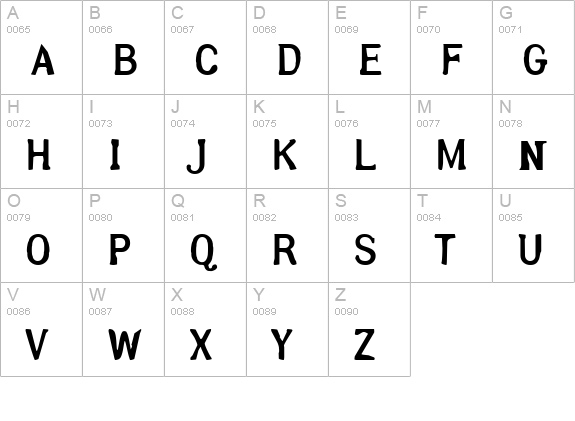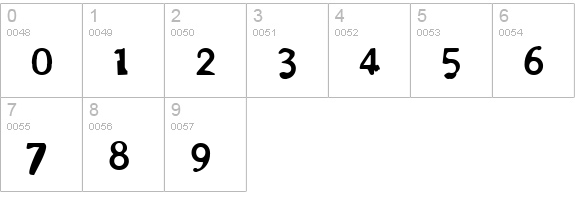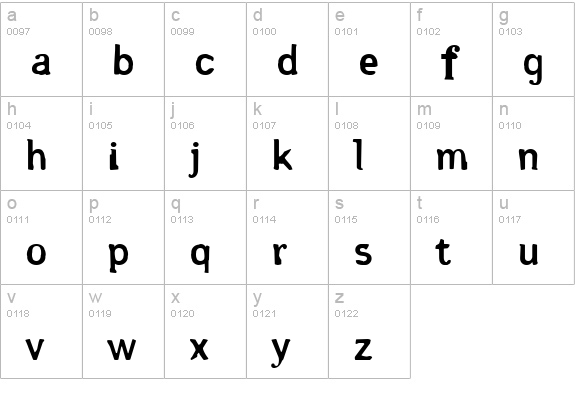
Arsle Gothic Font Details
Arsle Gothic is a stunning and versatile font that combines traditional Gothic elements with a modern twist. Its sharp lines and intricate details give it a unique and edgy look that is perfect for adding a touch of sophistication to any design project. Whether you're creating a poster, logo, or website, Arsle Gothic will make a bold statement and grab the attention of your audience. What makes Arsle Gothic even more appealing is that it is completely free to use. You can easily download this font at FontsMarket.com and start incorporating it into your designs right away. With its sleek and stylish design, Arsle Gothic is sure to elevate your work to the next level. Don't miss out on this fantastic font - download it for free today!